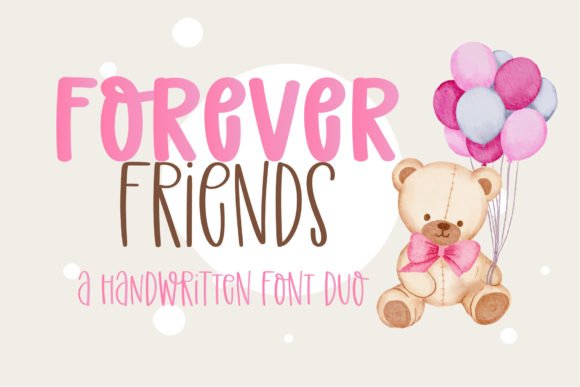
Creating Memories, One Font at a Time
There’s nothing quite like the feeling of creating something special – a birthday card for a loved one, a heartfelt invitation for a milestone event, or a simple yet meaningful note to brighten someone’s day. For designers, these moments are a chance to bring a personal touch to a project, making it truly unforgettable. And that’s exactly where the Forever Friends Font comes in – a charming handwritten duo that’s sure to make your designs stand out.
This lovely font is more than just a pretty face; it’s a versatile tool that can add a touch of warmth and personality to any project. With its natural, unique style, Forever Friends Font is the perfect addition to your design arsenal. Whether you’re working on a wedding invitation, a children’s book, or a social media campaign, this font is sure to bring a smile to your face and delight your clients.
Forever Friends Font Key Features
- Font Family: A unique, handwritten font designed for casual and friendly applications, ideal for titles, headings, and short paragraphs.
- Character Set: Includes a wide range of characters, including uppercase and lowercase letters, numbers, and punctuation marks, making it suitable for various applications.
- Unique Characteristics: Features a playful, handwritten style with subtle imperfections, giving it a personal and friendly touch, ideal for branding and marketing materials.
Designer Review: Forever Friends Font
Overall, I have mixed feelings about the “Forever Friends Font”. While it has some great qualities, it also has some notable limitations. ✨ Let’s start with what works well.
- The font has a unique and playful feel to it, perfect for projects that require a touch of whimsy.
- The characters are well-designed and easy to read, even at smaller font sizes.
- The font is highly customizable, with a wide range of style options available.
However, there are also some limitations to consider ⚠️:
- The font may not be suitable for formal or professional projects, as it can come across as too casual or childish.
- The character set is not as comprehensive as some other fonts, which can make it difficult to use in certain contexts.
- The font may not be optimized for use at very large or very small font sizes, which can affect its readability.
Overall, I would give the “Forever Friends Font” 3 out of 5 stars. While it has some great qualities, its limitations may make it less suitable for certain projects. With some additional development and refinement, I think this font could be a real winner.
Use the Forever Friends Font for:
1. Friendship-themed designs (e.g., birthday cards, party invitations).
2. Personalized gifts (e.g., customized t-shirts, mugs).
3. Social media graphics (e.g., Instagram posts, Facebook covers).
Remember to experiment with different font sizes, colors, and alignments to get the most out of the Forever Friends Font.
Alternatives to Forever Friends Font for Designers
Great Vibes Font is a beautiful, handwritten font that is perfect for creating a whimsical and playful atmosphere. It’s ideal for use in invitations, greeting cards, and other creative projects where a touch of elegance is needed. Great Vibes Font has a more elegant and sophisticated feel compared to Forever Friends Font, which is more casual and cursive.